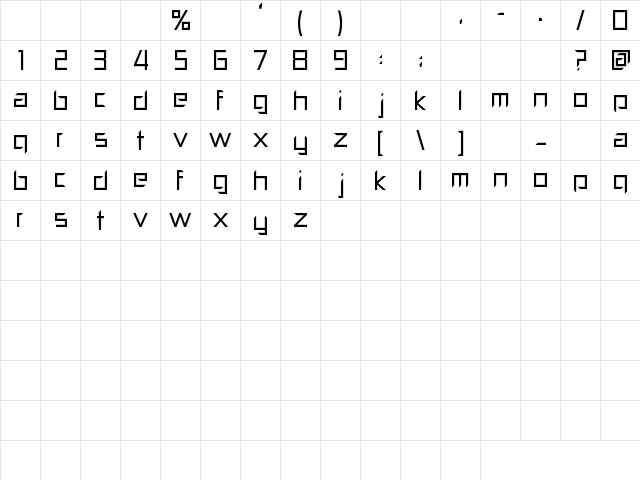
Pill Popper Regular
| Foundry | Russ |
| Designer | Russ - Paul Russen 2002 |
Design Context for Pill Popper Typeface
Pill Popper offers clean, dependable letterforms without strong stylistic allegiance, making it a practical choice for designers who need flexibility.